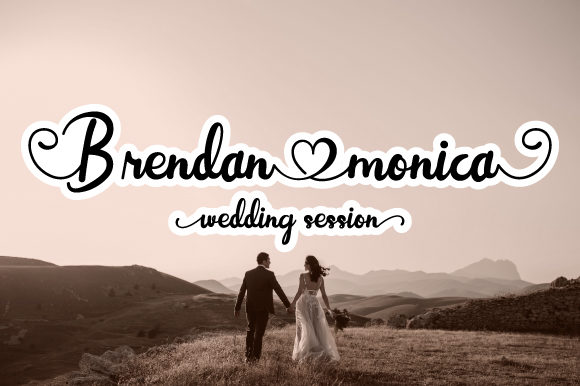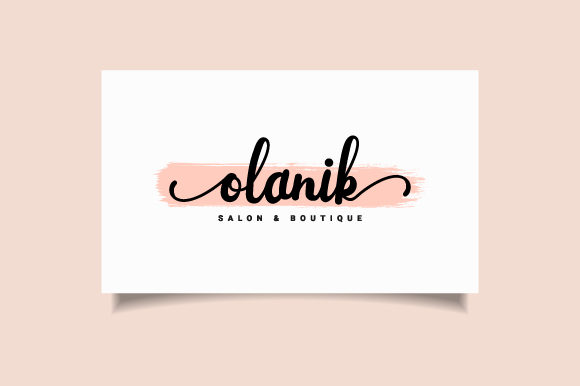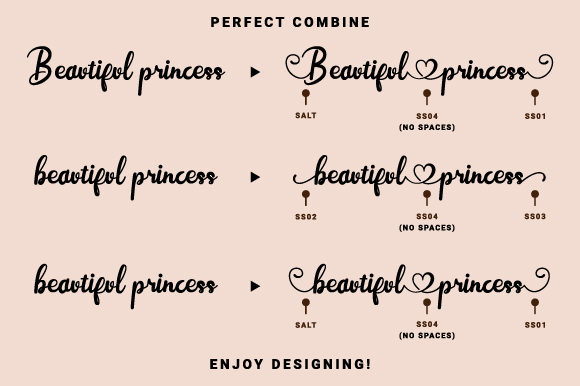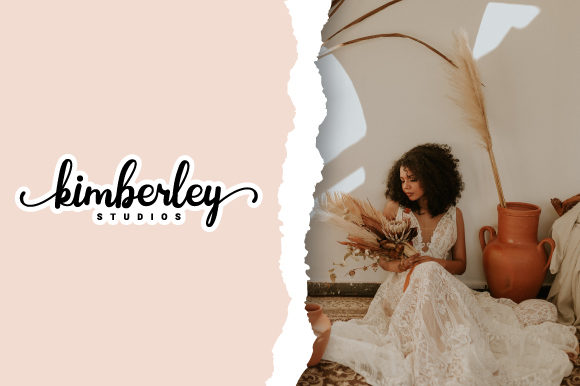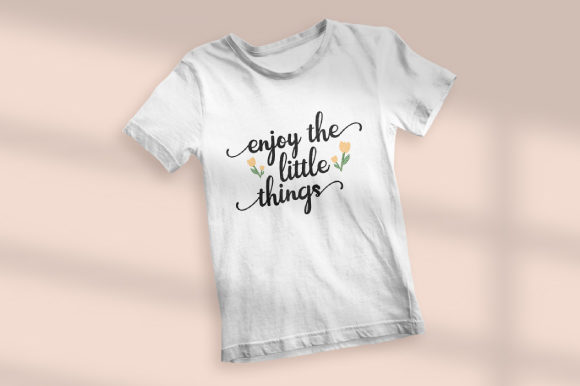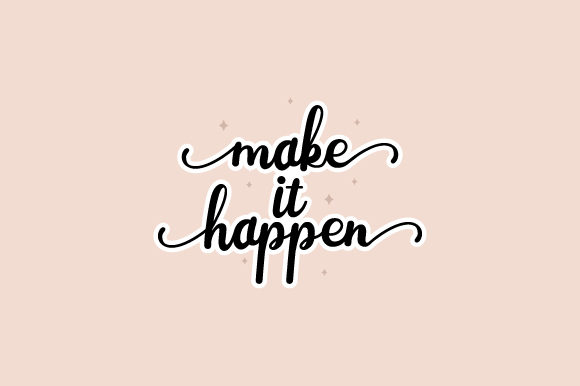
The Designer’s Delight: Goodwin Geraldine Font
I still remember the frustration of working on a project, hours spent searching for the perfect font, only to end up with something that just didn’t feel right. It was as if the font was fighting me, refusing to convey the elegance and sophistication I knew my design deserved. That’s when I stumbled upon Goodwin Geraldine, an elegant and flowing handwritten font that has since become a staple in my design toolkit.
A Personal Review: What I Love About Goodwin Geraldine
Goodwin Geraldine is more than just a font; it’s an experience. Here are a few things that I absolutely love about it:
- ✨ Elegant and flowing script: Goodwin Geraldine maintains its classy calligraphic influences while feeling contemporary and fresh.
- ✅ PUA encoded for ease of use: With PUA encoding, accessing all of the glyphs and swashes is a breeze, making it easy to add a personal touch to your designs.
- 💫 Versatility: Whether you’re working on a branding project, a wedding invitation, or a packaging design, Goodwin Geraldine adapts seamlessly.
No font is perfect, and Goodwin Geraldine is no exception. Here are a few things to keep in mind:
- ⚠️ Legibility at small sizes: Like many script fonts, Goodwin Geraldine can be a bit tricky to read at very small sizes. It’s best used at larger sizes where its elegance can shine.
- 🤔 Pairing with other fonts: While Goodwin Geraldine is stunning on its own, pairing it with another font can be a bit challenging. You may need to experiment with different combinations to find the perfect match.
The Story Behind Goodwin Geraldine
Goodwin Geraldine was inspired by the classic calligraphic scripts of the past, with a modern twist. Its creator aimed to craft a font that exudes elegance and sophistication while still feeling approachable and fresh. The result is a font that works beautifully for a wide range of projects, from luxury branding to personal stationery.
| Is Goodwin Geraldine suitable for body text? | While Goodwin Geraldine is stunning, it’s best used for headings and titles due to its script nature. For body text, a more straightforward font is usually recommended. |
| Is Goodwin Geraldine available in different weights? | Goodwin Geraldine comes in a single weight, but its versatility and range of glyphs make it suitable for various design needs. |